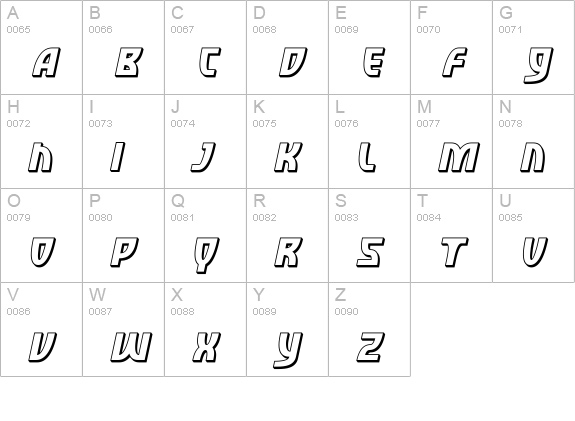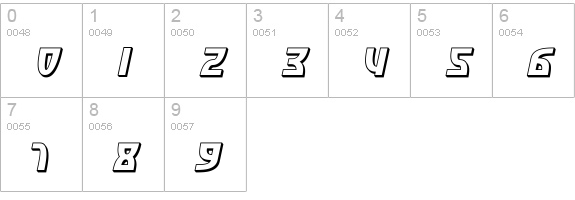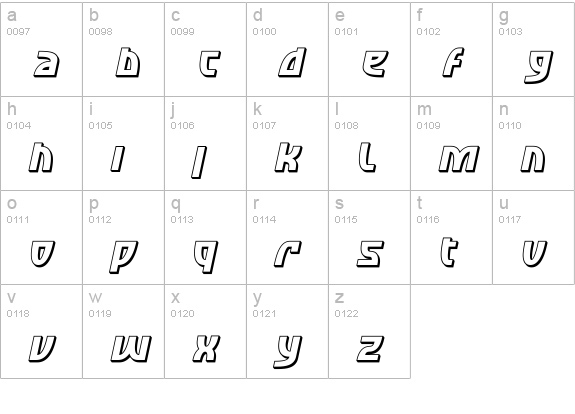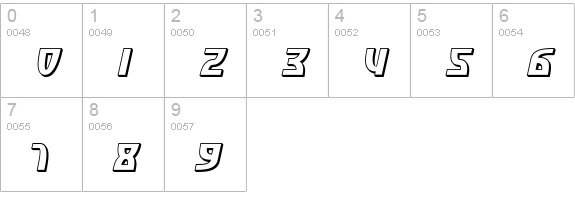
SF Retroesque Shaded Oblique Font Details
SF Retroesque Shaded Oblique is a distinctive, italic variant in the SF typeface family \xE2\x80\x94 well suited to design and typography projects.
SF Retroesque Shaded Oblique font is a stunning and captivating typeface that seamlessly blends the charm of retro aesthetics with a modern twist. With its distinctively shaded oblique design, this font exudes a sense of nostalgia while remaining effortlessly chic. Every letter in SF Retroesque Shaded Oblique font is meticulously crafted, showcasing intricate details and a unique sense of style. The smooth curves and subtle angles give this typeface a dynamic and energetic feel, making it perfect for projects that require a touch of retro flair. Whether you're designing a vintage-inspired poster, a striking logo, or a captivating website header, SF Retroesque Shaded Oblique font will undoubtedly elevate your creative endeavors. Its versatility allows it to be used in various design contexts, adding a distinctive character that effortlessly catches the eye. One of the most remarkable aspects of SF Retroesque Shaded Oblique font is that it is absolutely free. You read that right – this exceptional typeface is freely available to download at FontsMarket.com. Now you can add a touch of retro sophistication to your designs without breaking the bank. With SF Retroesque Shaded Oblique font, you can transport your audience back in time while maintaining a contemporary edge. Its timeless appeal and effortless charm make it a must-have for any designer looking to create memorable and visually captivating projects. Download SF Retroesque Shaded Oblique font from FontsMarket.com today, and let your creativity soar with this exquisite typeface that seamlessly combines the beauty of the past with the excitement of the present.